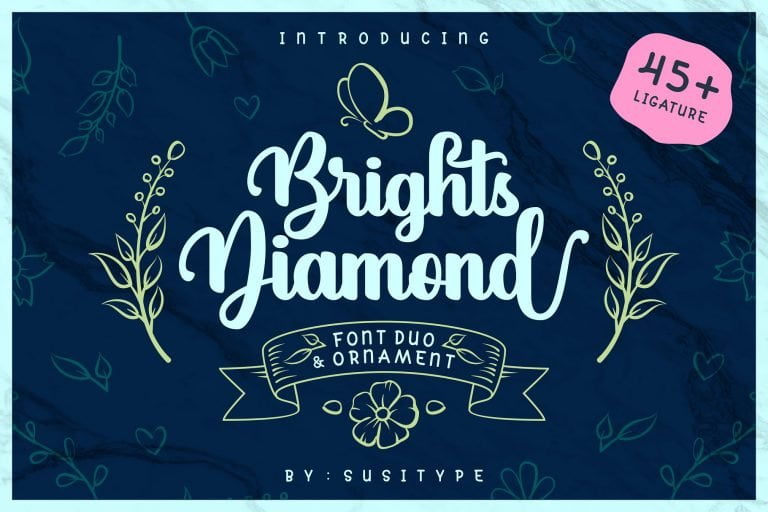
Brights Diamond Script Font
A modern script font duo, perfect for high impact headlines. Introducing Brights Font. Brights Diamond – font duo that including feminine bold script calligraphy and monoline sans. PLUS WITH EXTRAS FLORAL ORNAMENT.
Still not enough? This package also includes 45+ LIGATURE . Of course we all love ligature aren’t we?. We also give you some alternate character to increase the fun.